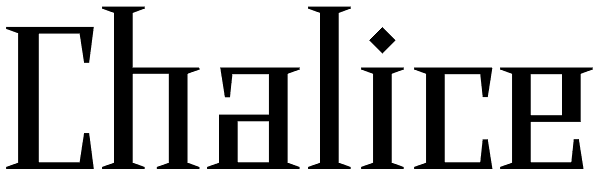
Chalice
Chalice is a new original Canada Type family inspired by two different engraving eras and locations: Medieval England and 19th century Russia. Chalice's construct is geometric at heart, though the wedge serifs and their contribution to the overall...